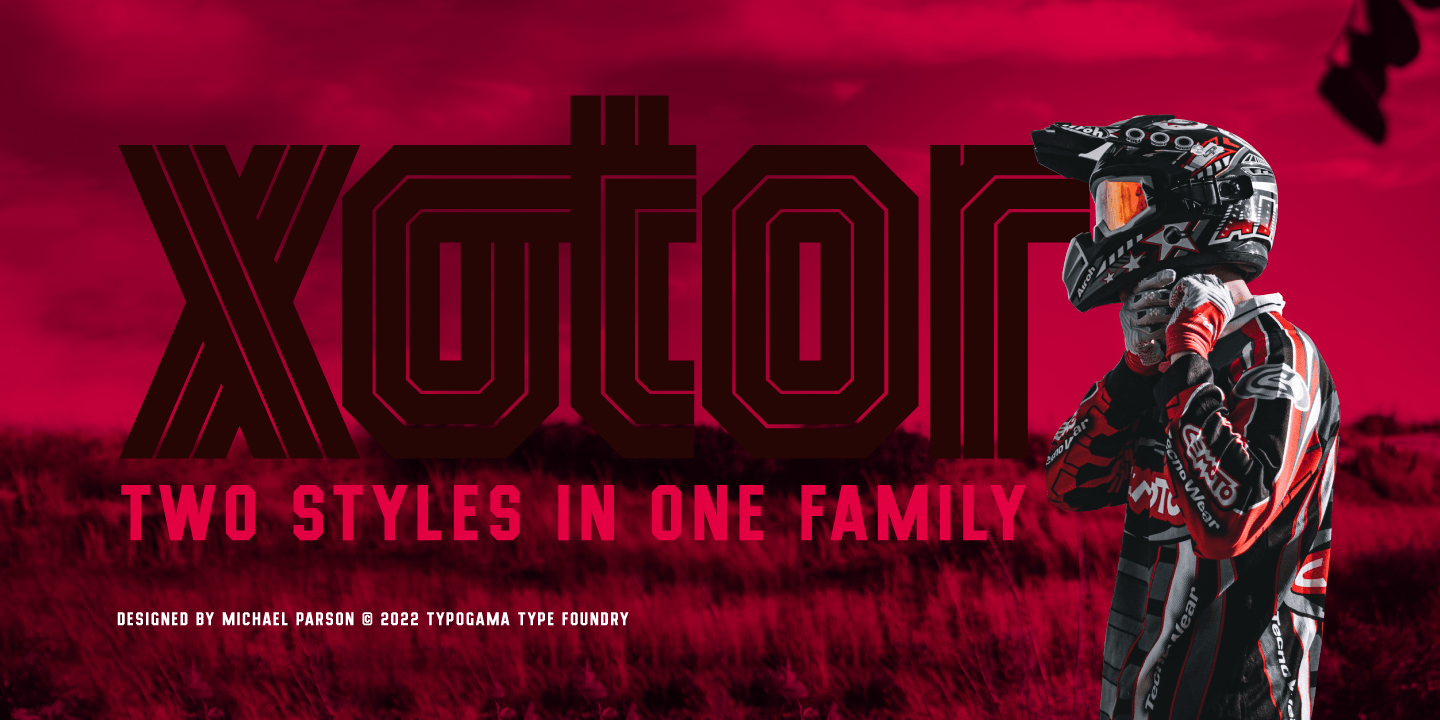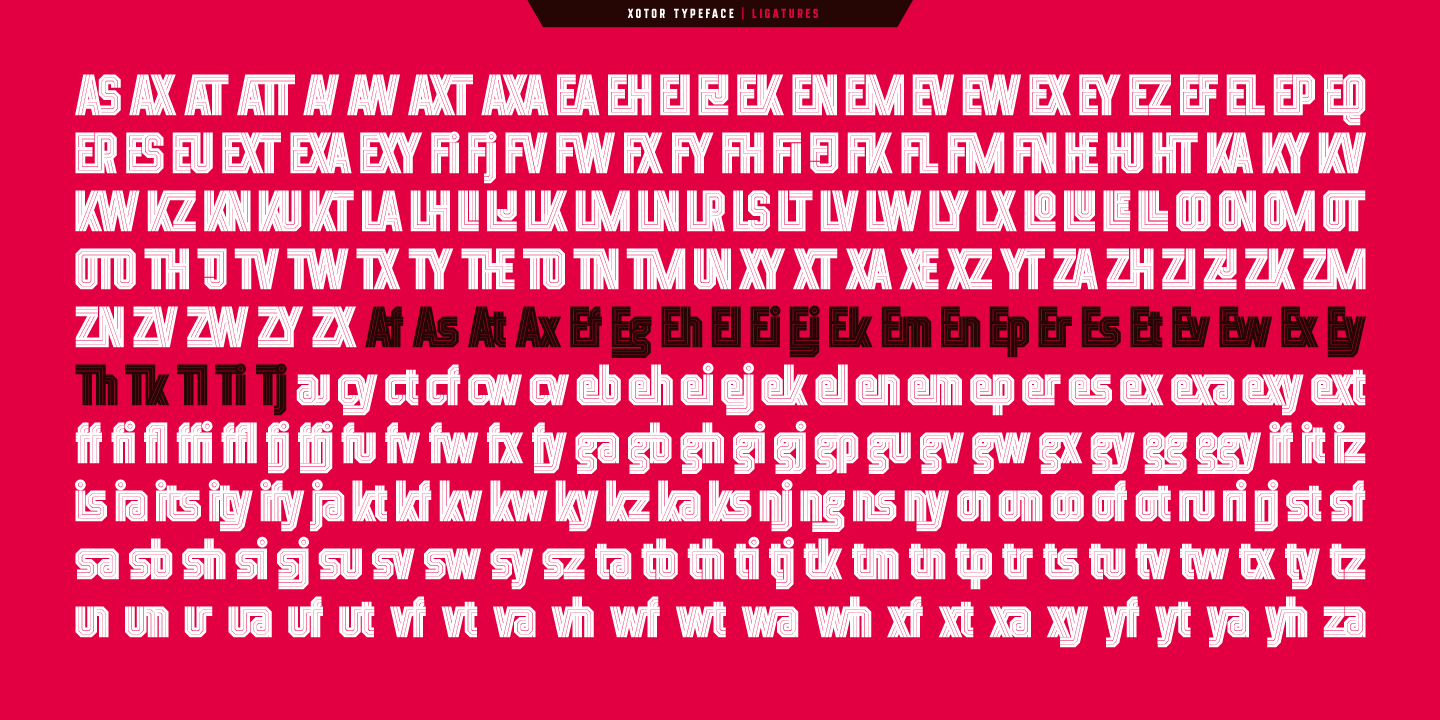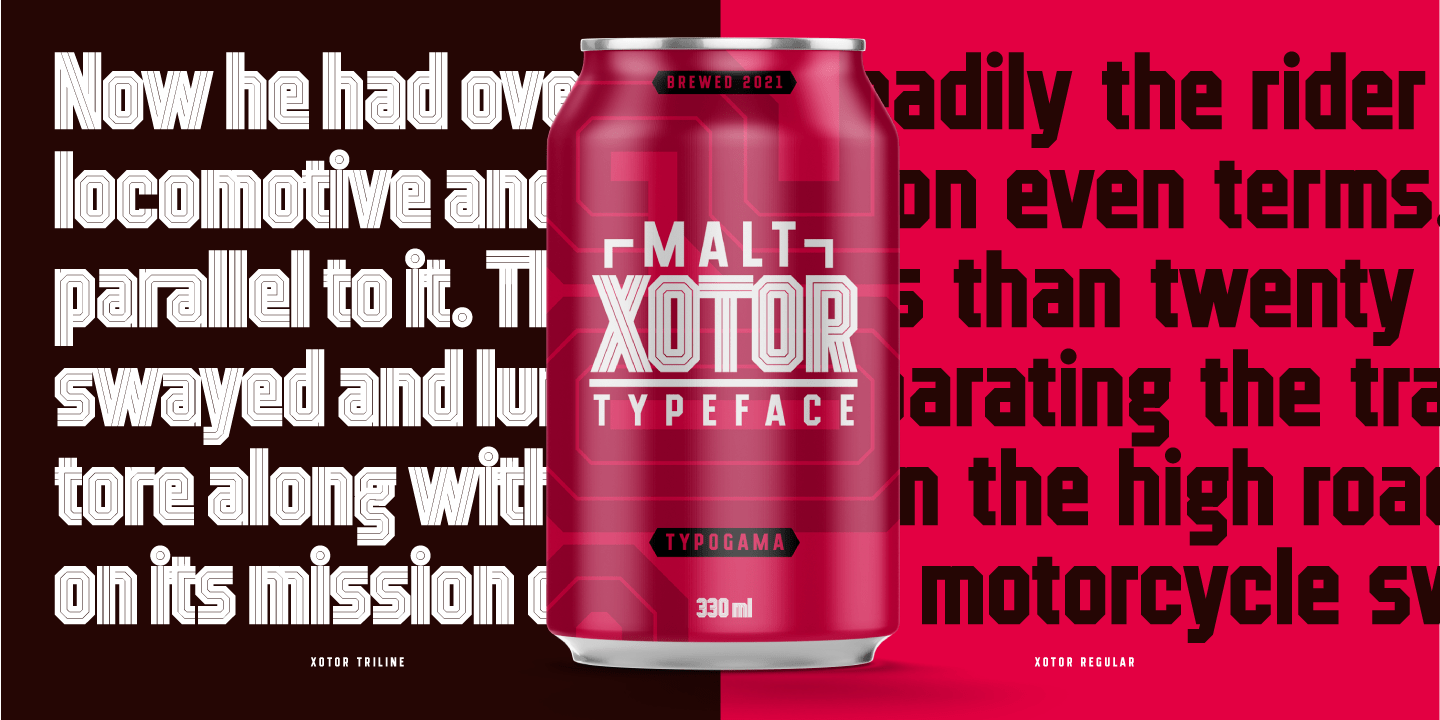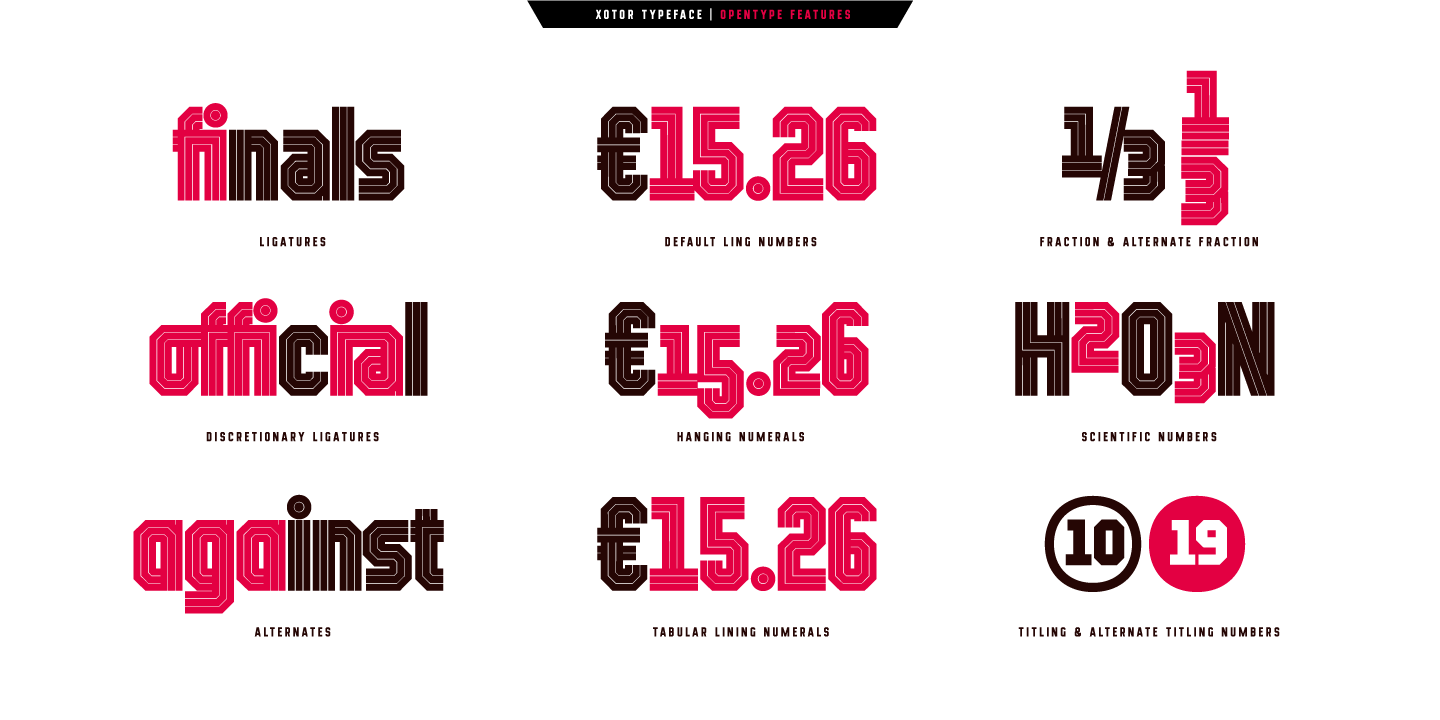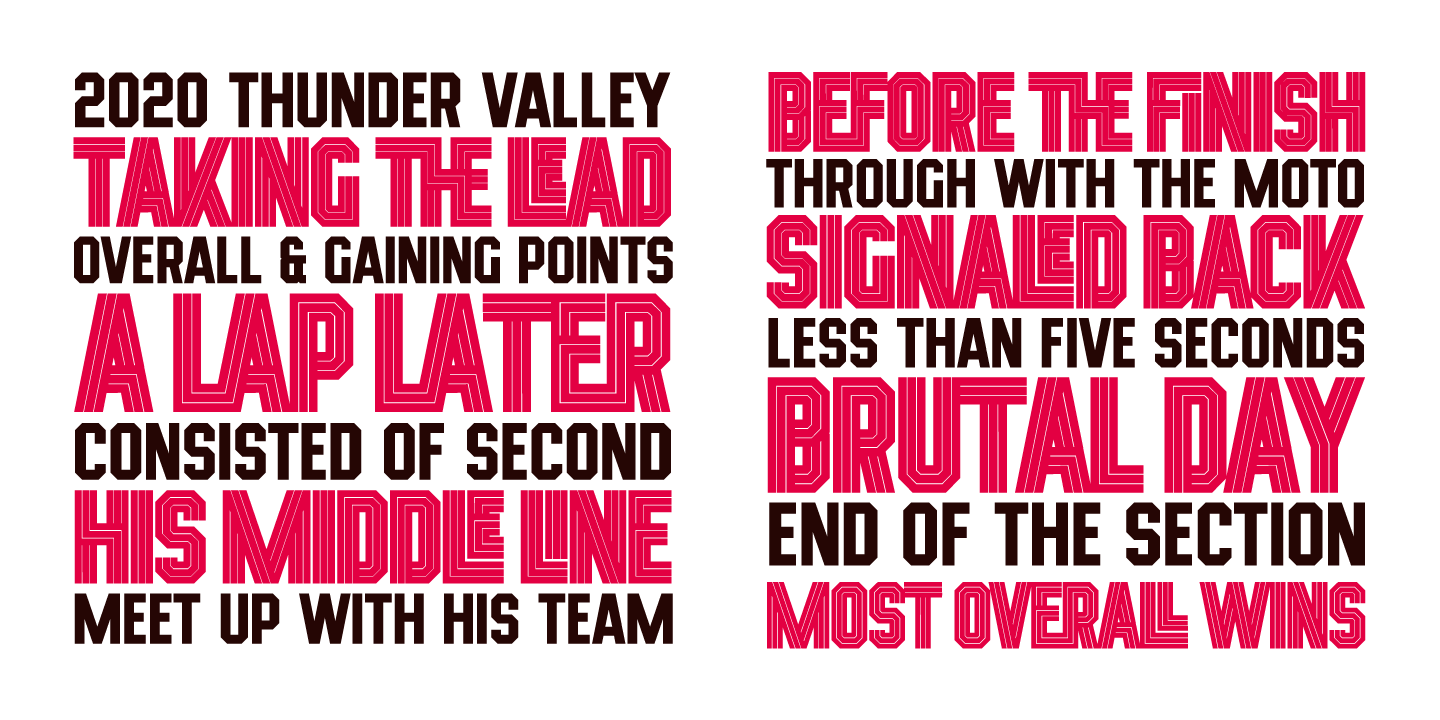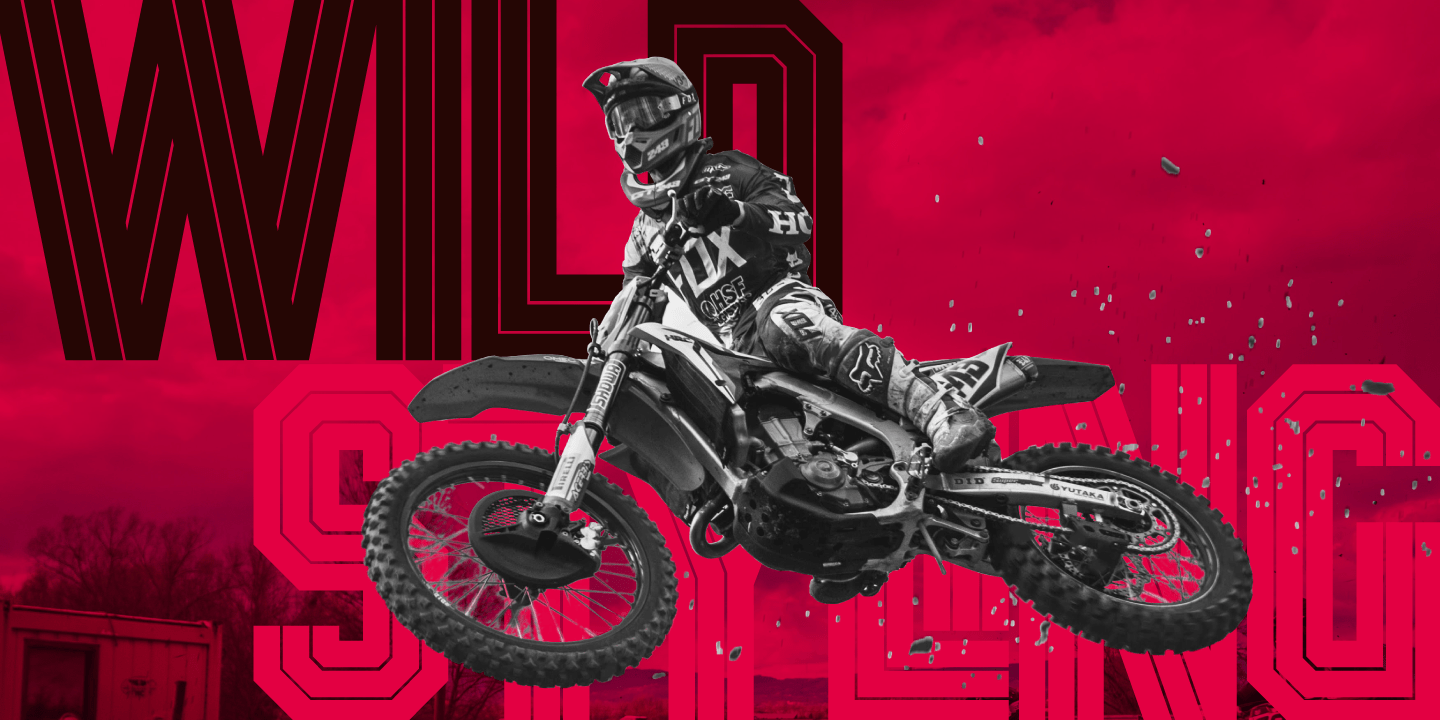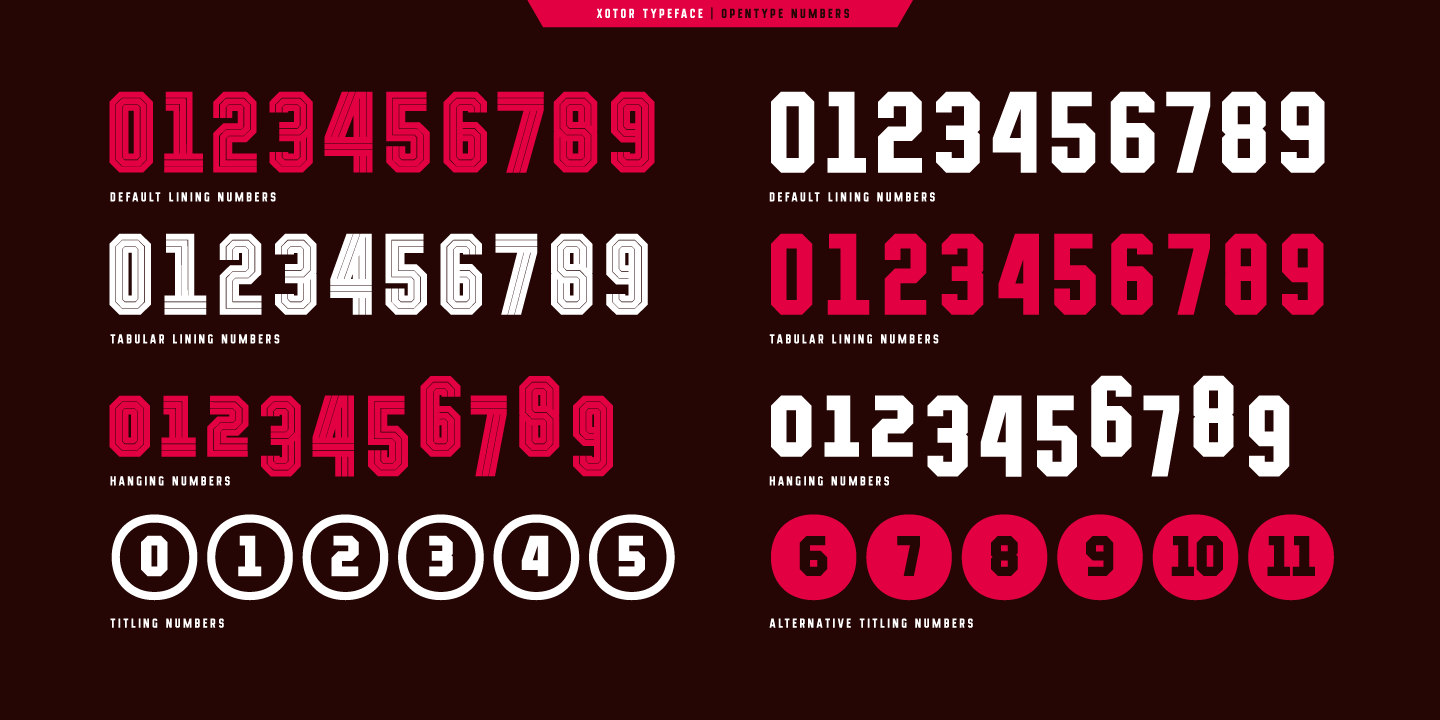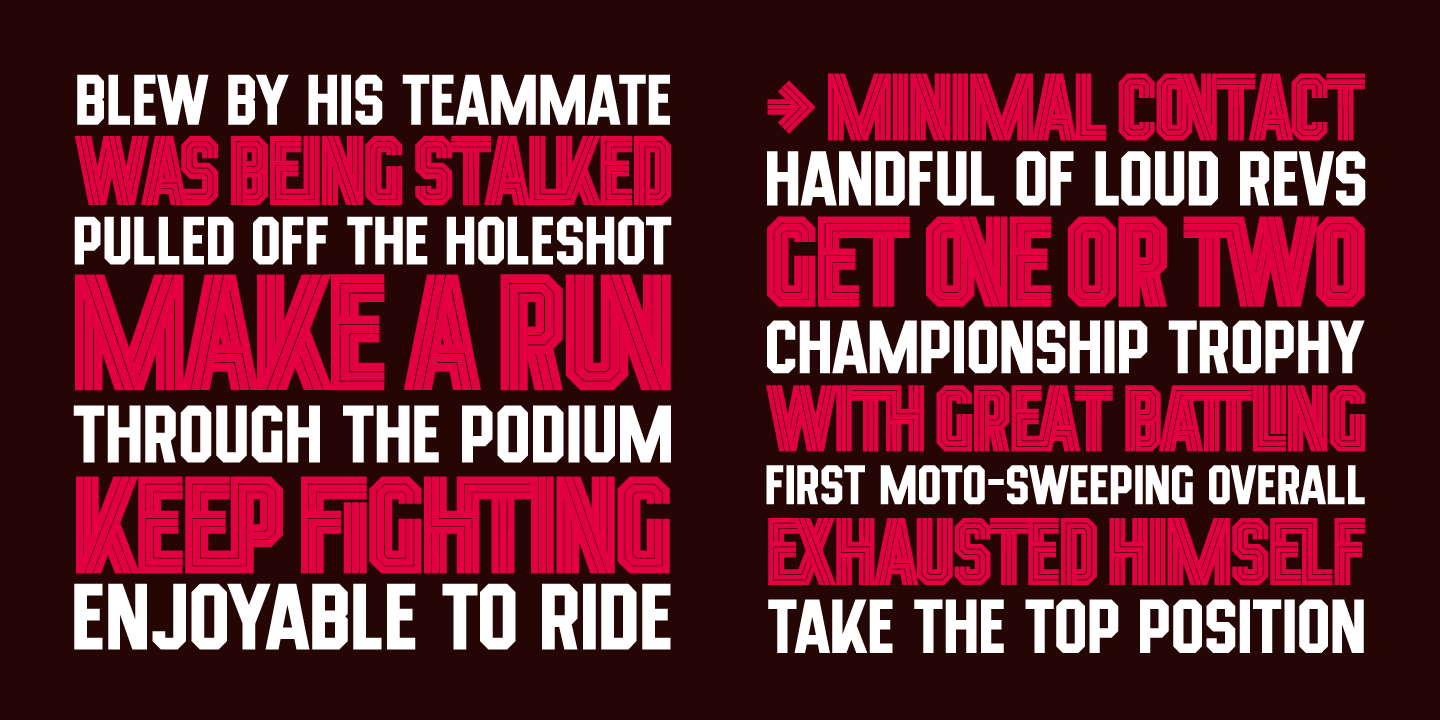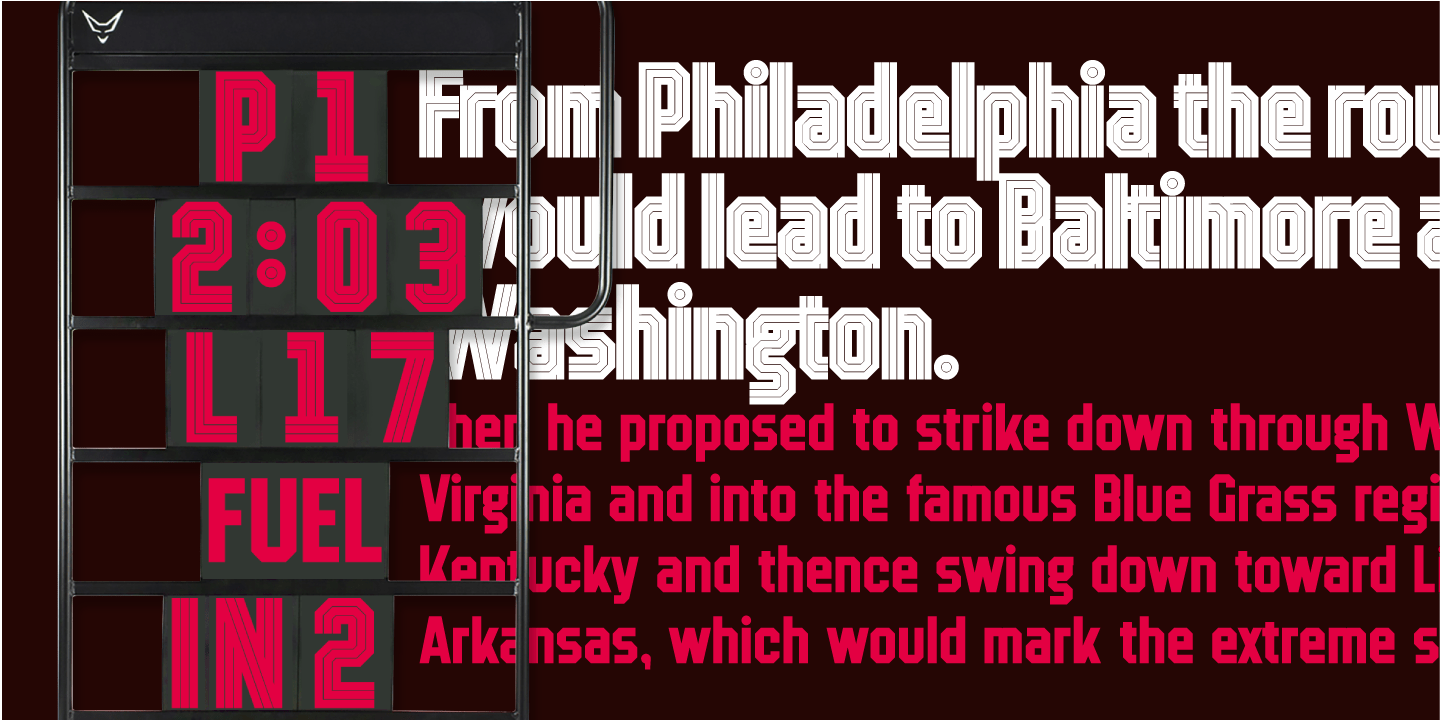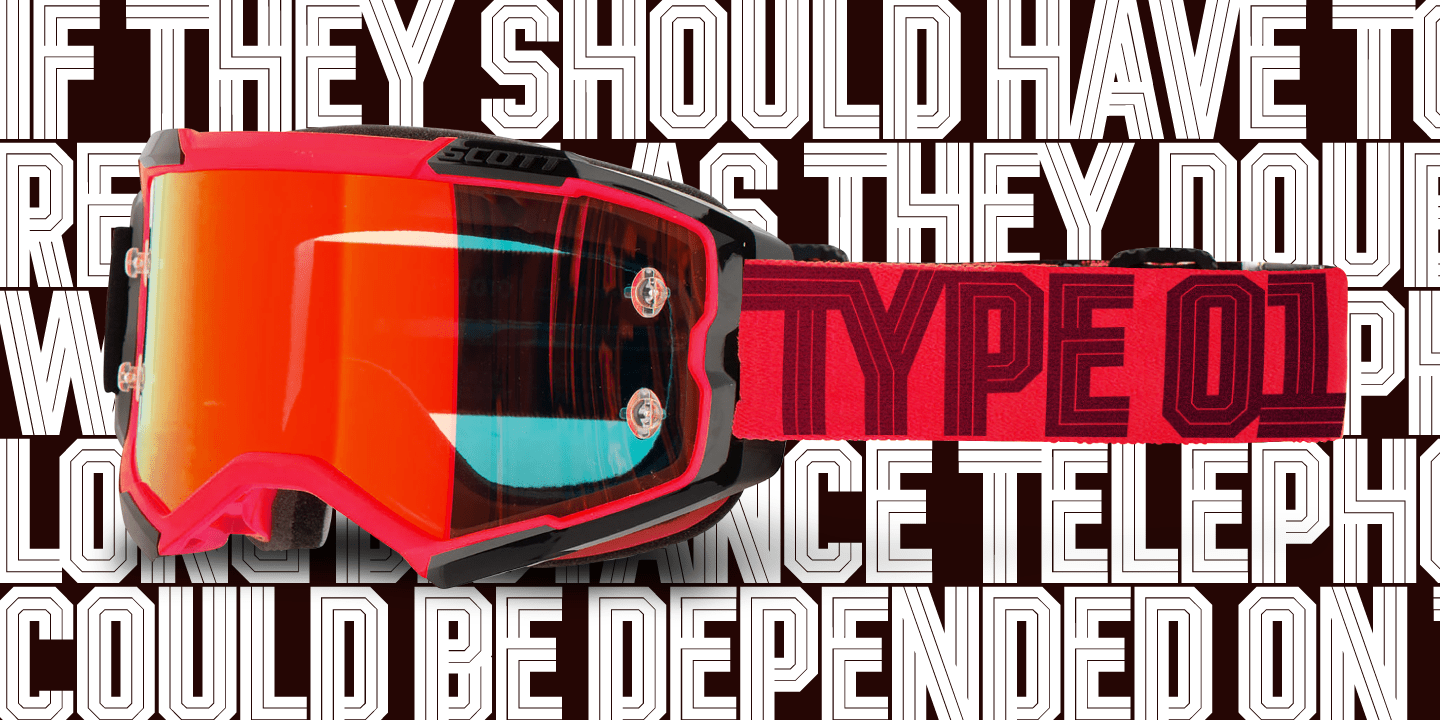
Xotor
Font Family by Typogama
Xotor is a double styled typeface family destined for use in titling and headlines. The main style, the Triline weight, is a modular typeface composed of three strokes and is best used in large sizes. For smaller bodies of text, the second Regular style is based on the same letter construction but in a simple, solid stroke. Both weights can either be used individually or combined to add extra effect to any layout. With an extended Latin language support, Xotor covers most Latin based scripts and equally features a range of Opentype features, from ligatures, alternative letters or different styles of numerals.